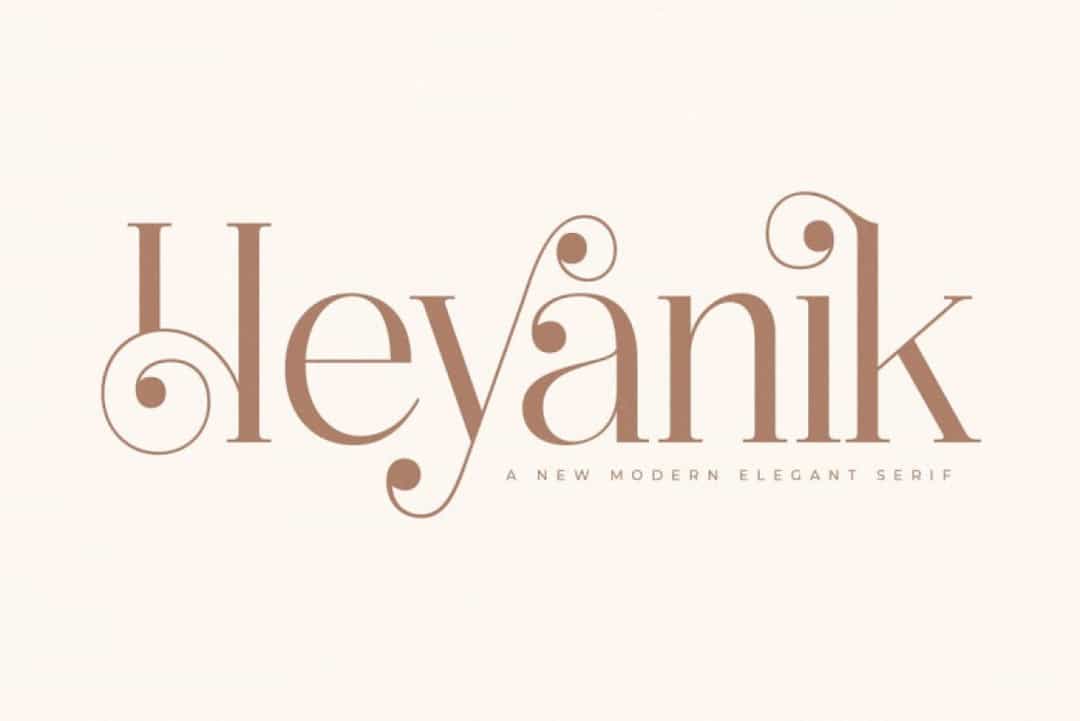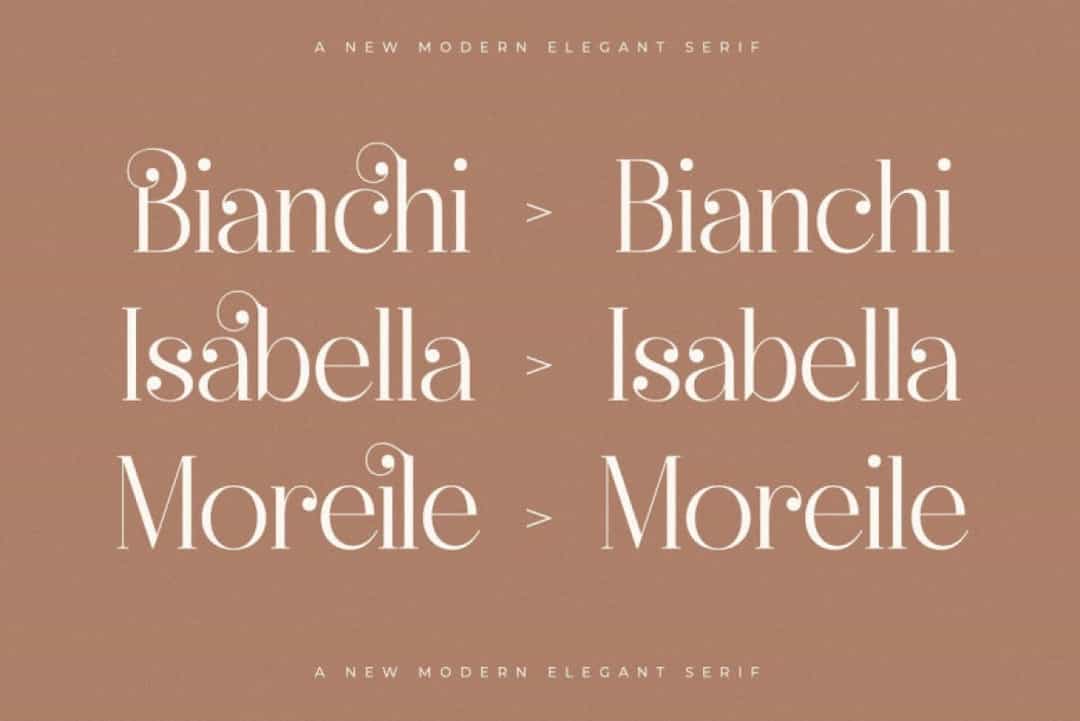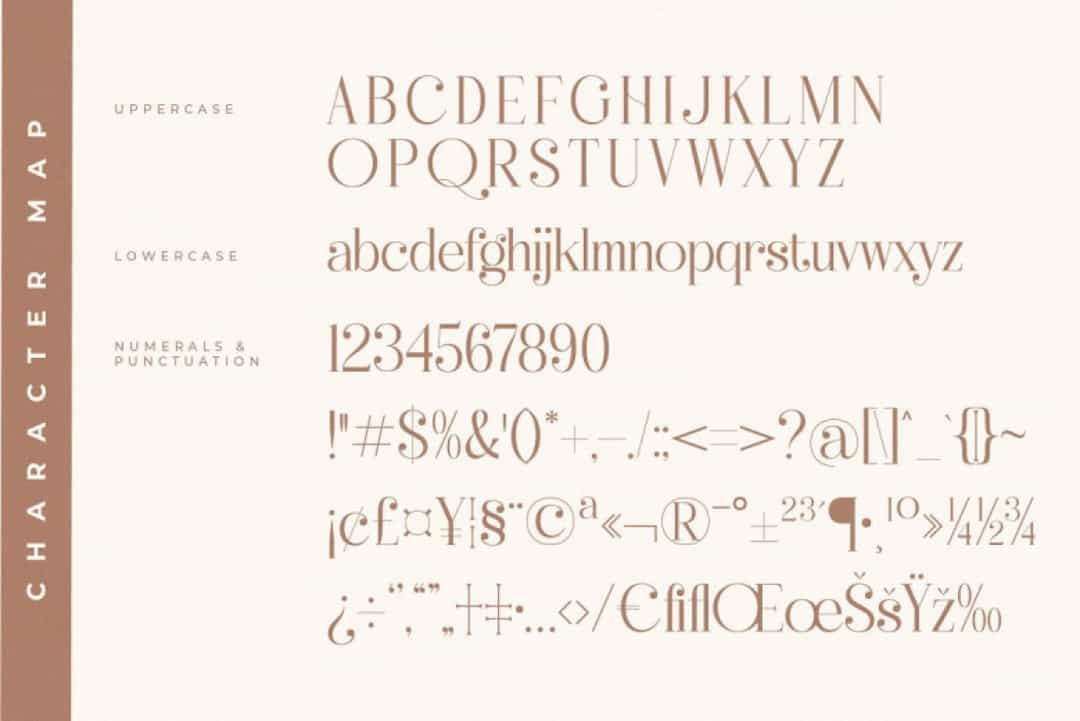
Heyanik Typeface by Storytype is an elegant classic serif typeface with its own distinctive style and modern appearance, ideal for creating classy logos, book titles, film titles, fashion magazine covers and clothing labels as well as lettering quotes or much more.